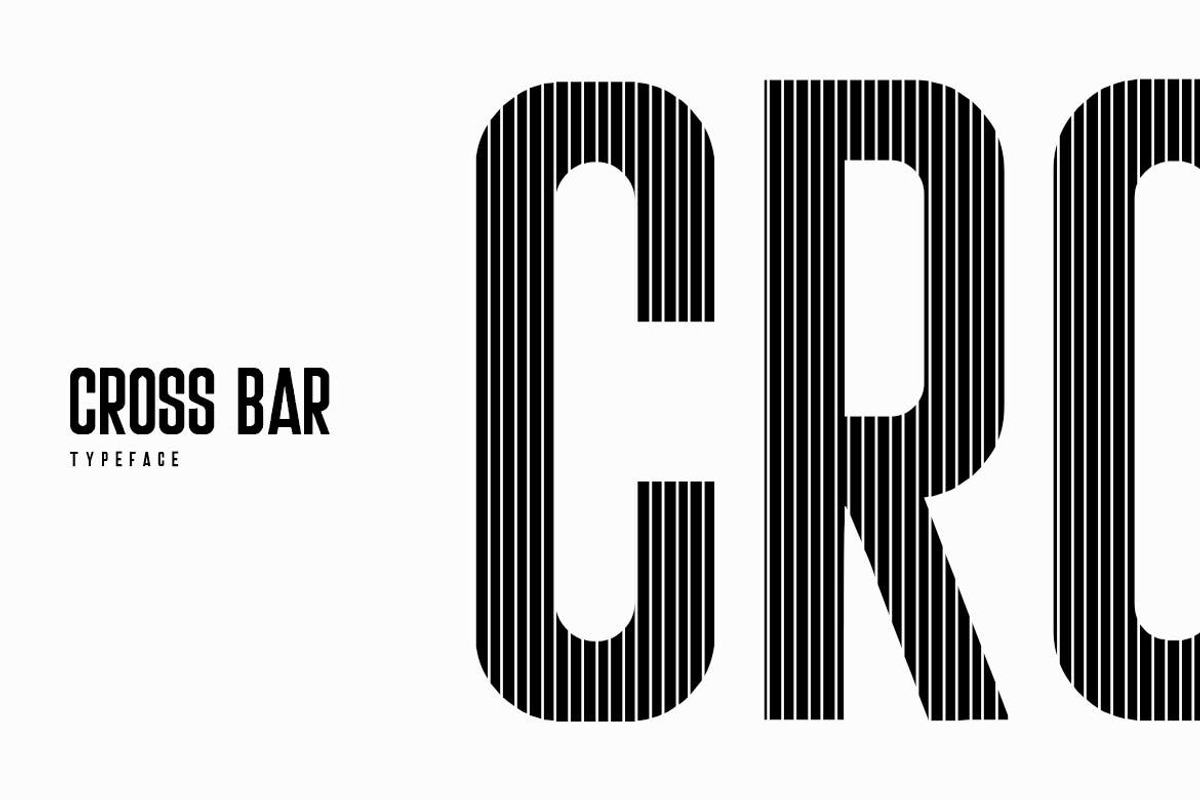
CrossBar Sans
CrossBar Sans Typeface
Crossbar Sans is a modern Sans Serif typeface, CrossBar Sans can keep the Stripe style at its level best and is a perfect choice for, Film Posters, headlines, Block letters, Subheading, Logo Designs, Big Banners. Classic & Decorative Typography Designs.